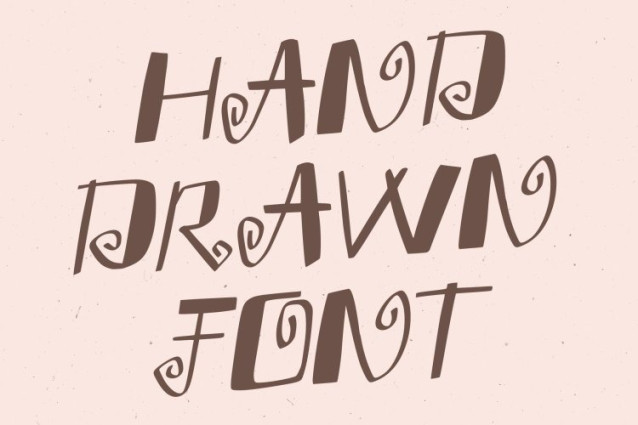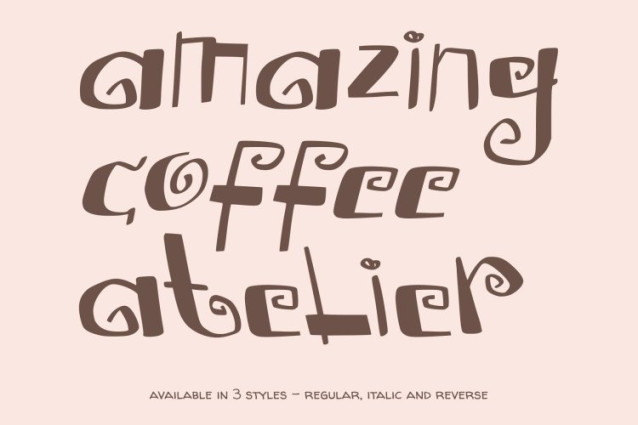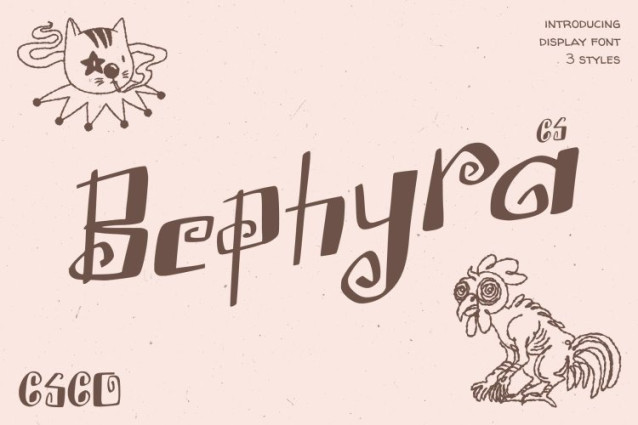
CS Bephyra Font This is a whimsical storybook sans serif font crafted to spark imagination and wonder. Its curved letterforms and gentle decorative touches give it a warm, inviting presence perfect for designers who want to bring a magical, fairytale-like atmosphere into their work. Every stroke carries a sense of playfulness, making the font visually engaging and full of charm.
Curved Sans Serif Forms for Soft, Friendly Expression
The softly rounded sans serif structure gives this its signature friendly feel. These smooth curves create a childlike innocence while maintaining clarity and readability. The shapes are expressive yet balanced, allowing the font to stand out without overwhelming the overall design. This makes it ideal for storytelling visuals, playful branding, and imaginative layouts.
Decorative Details That Add Fantasy and Flair
This font integrates subtle decorative elements that enhance its whimsical personality. These details bring a hint of fantasy and hand-crafted artistry, adding depth and uniqueness to the typeface. The style feels organic and expressive, making every word look alive, animated, and full of narrative energy.
Perfect for Children’s Books, Fantasy Themes, and Playful Branding
From children’s book covers to fairy-tale posters, this font thrives in designs that aim to inspire joy and wonder. Its enchanting style is perfectly suited for fantasy worlds, playful product packaging, magical brand identities, and creative social media content.